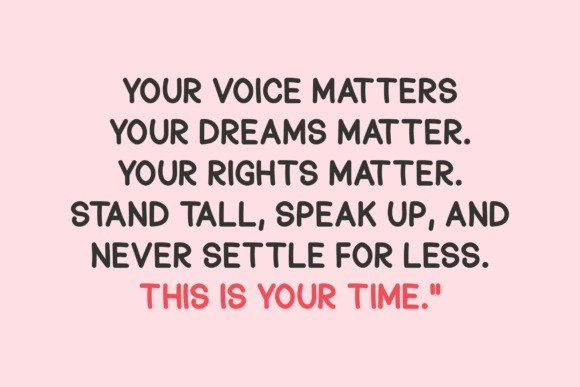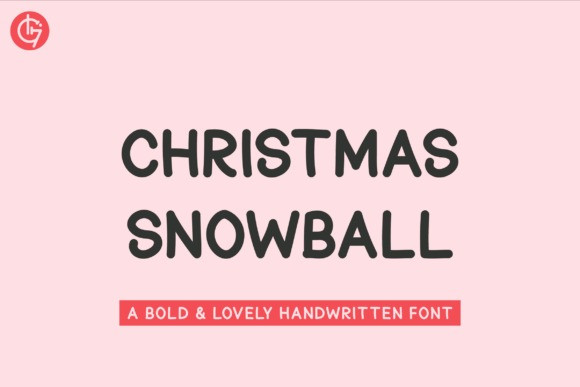
Christmas Snowball Font
Christmas Snowball Font, a handwritten font that combines a strong, bold presence with a charming, personal touch. Ideal for branding, packaging, social media, and print, its unique style adds warmth and authenticity to any design. Achieve a professional yet approachable aesthetic with it.